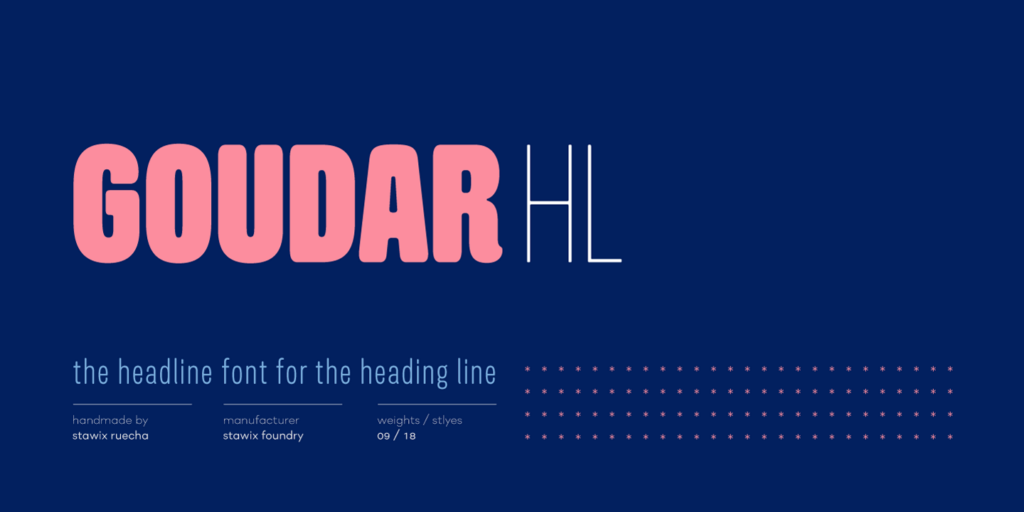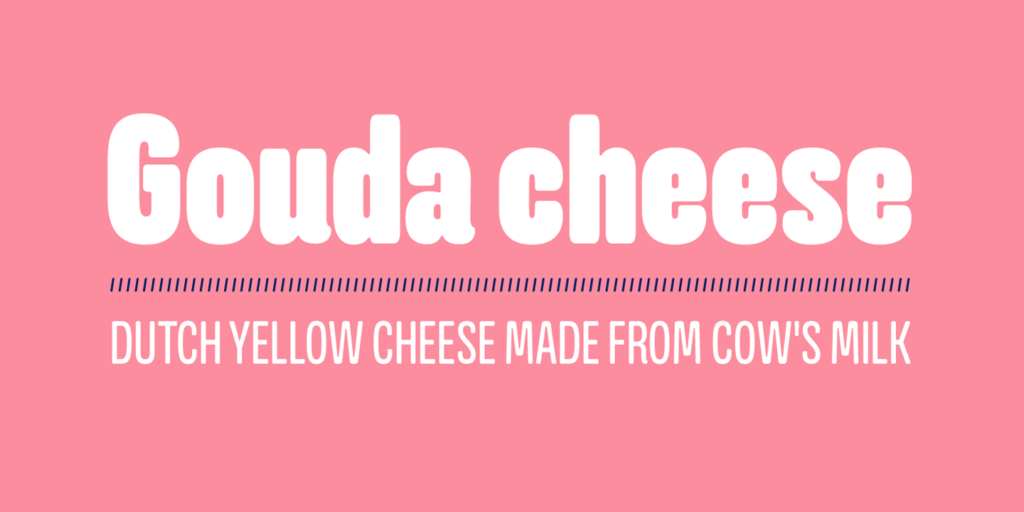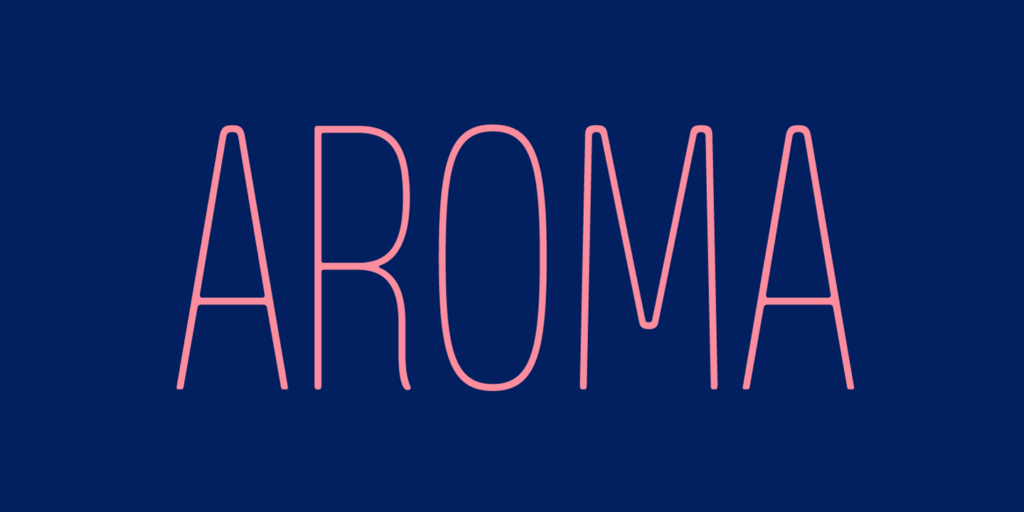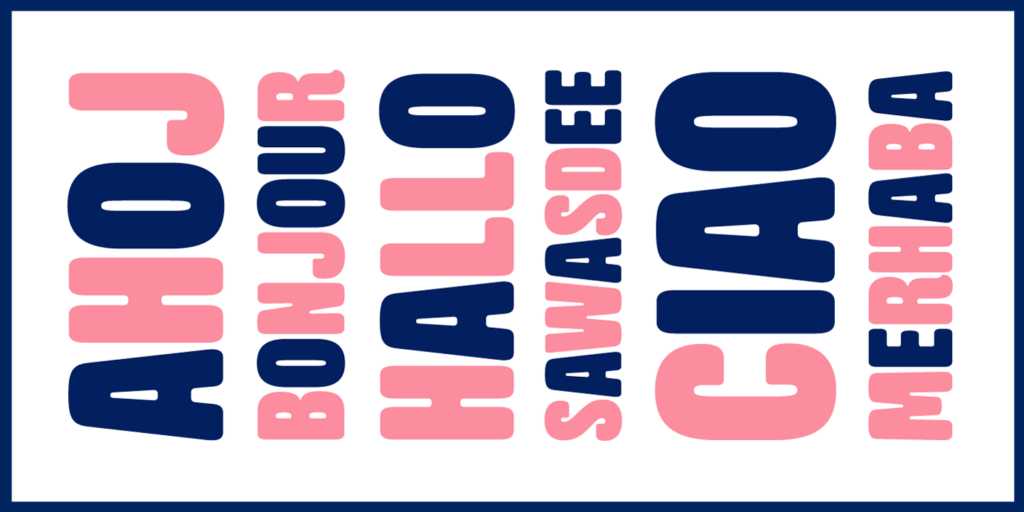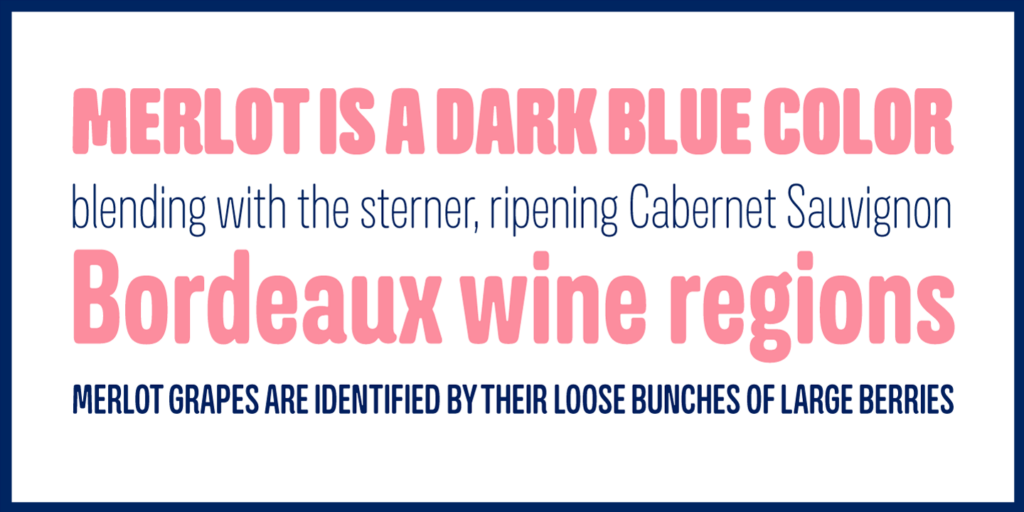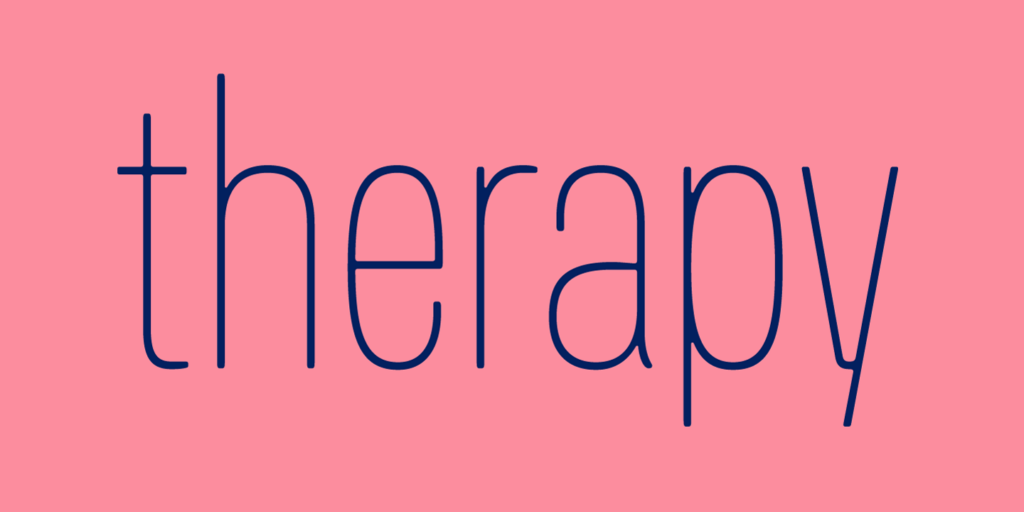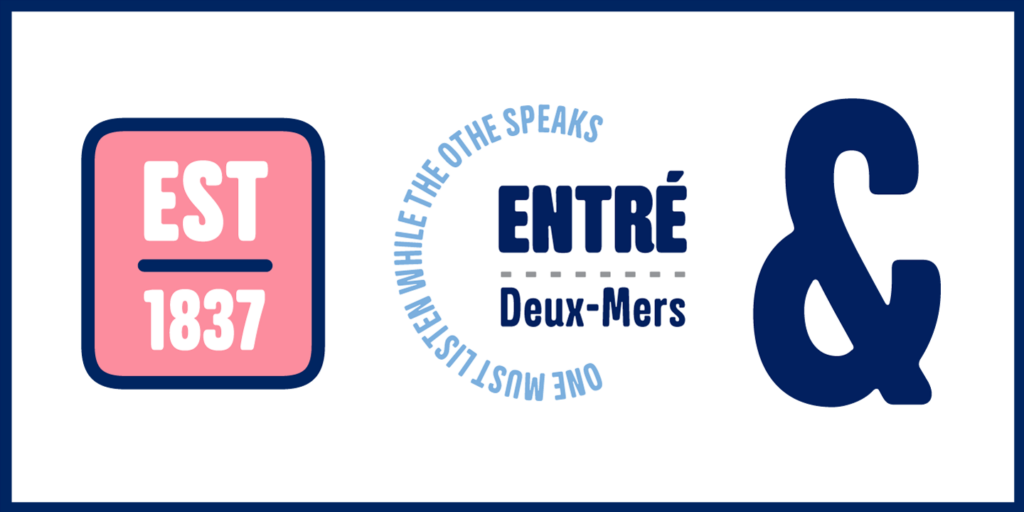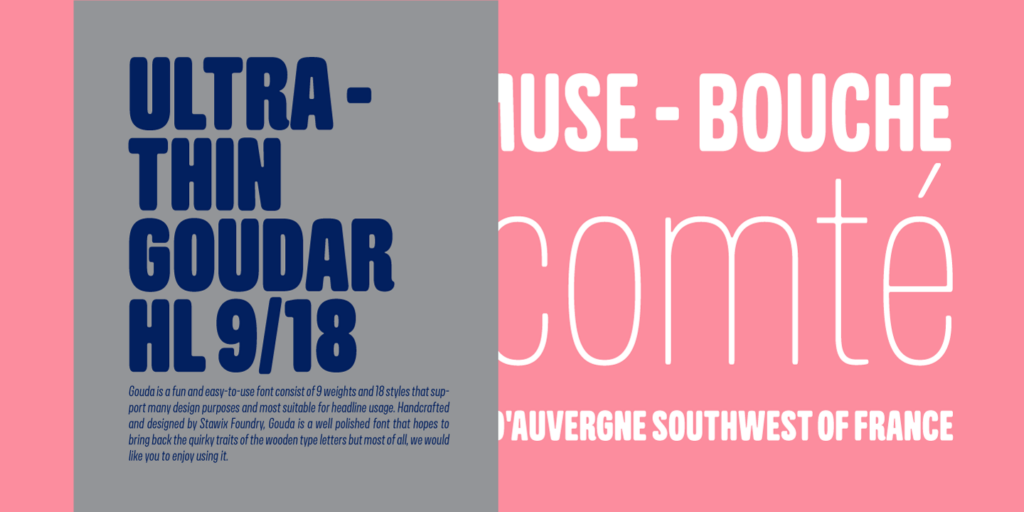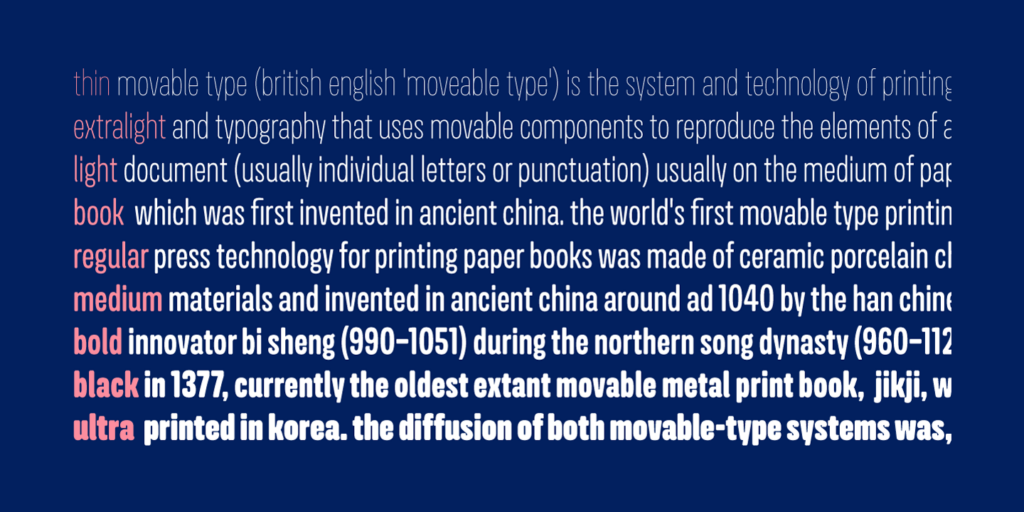
Goudar HL — STAWIX Foundry
Goudar HL is a retail font by STAWIX Foundry, available as a Thai and Latin typeface for branding, digital use, variable font workflows, and contemporary แบบอักษรไทย licensing.
The family adds a handcrafted letterpress feel to posters, packaging, and brand systems.
Designer
Stawix Ruecha
About
From the old days technique to the present technology of type design, Goudar is the font that meets in the middle. With the design that has acquired the essence of wooden type letterpress but added with our own modern twist. Goudar is a fun and easy-to-use font consist of 9 weights and 18 styles that support many design purposes and most suitable for headline usage. Handcrafted and designed by Stawix Foundry, Goudar is a well polished font that hopes to bring back the quirky traits of the wooden type letters but most of all, we would like you to enjoy using it.